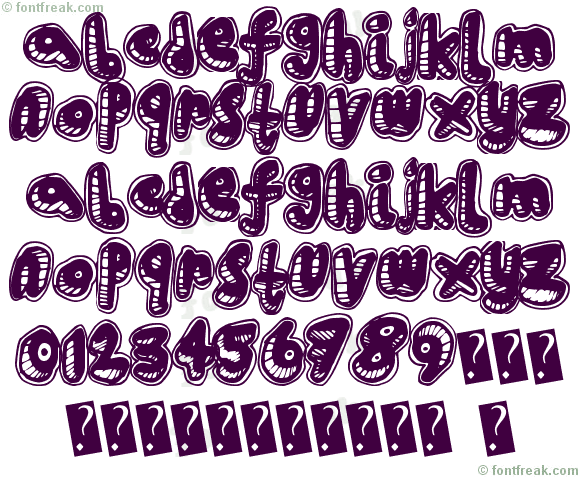
HouseRave
About HouseRave
HouseRave, designed by XEROGRAPHER FONTS in 2012, is a captivating display font that embodies a playful and energetic style. This unique typeface features rounded, bubbly letterforms that convey a sense of fun and creativity. The strokes are thick and bold, offering a robust appearance, while the contrasting elements within each character add visual interest. The spacing is balanced, ensuring that each letter stands out without feeling crowded, making it ideal for various applications.
The HouseRave font is particularly well-suited for vibrant use cases. It shines in party flyers, where its lively character can attract attention and set the mood. Additionally, it works wonderfully for children’s book covers, lending a whimsical touch that appeals to younger audiences. Restaurant menus that want to convey a casual and friendly atmosphere can benefit from this font, as can promotional materials for music events or festivals that aim to capture the spirit of excitement and joy. Graphic designers will find this font an excellent choice for creating eye-catching social media graphics that need to stand out in crowded feeds.
What sets the HouseRave font apart is its unique blend of playfulness and boldness, making it an exceptional choice for a range of creative projects. Its distinctive visual style not only captures attention but also evokes a sense of joy and energy that resonates with viewers. For those interested in adding this charismatic typeface to their collection, a HouseRave font free download is readily available, allowing anyone to infuse their work with creativity and flair.